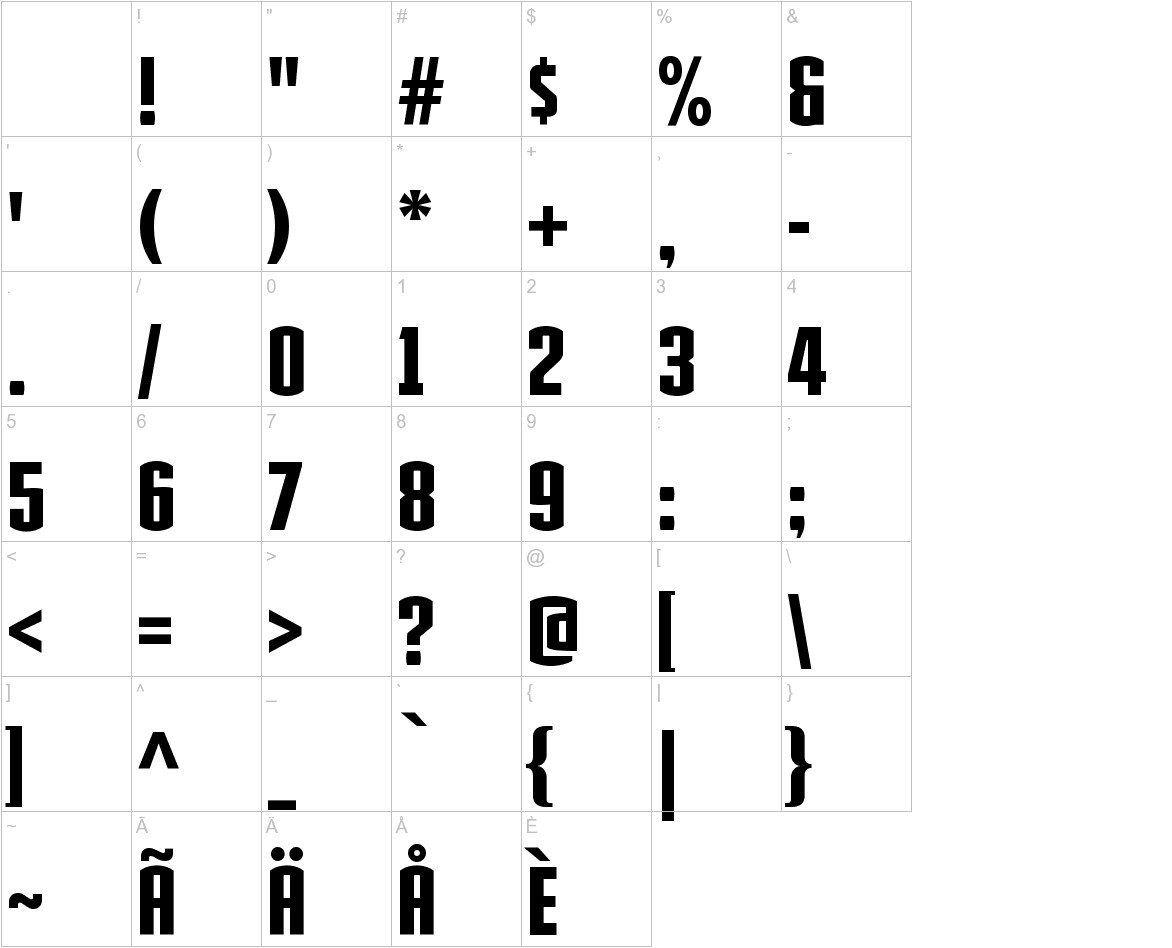
IRON MAN OF WAR 002 NCV
IRON MAN OF WAR 002 NCV is the second face in the IRON MAN OF WAR family. While it certainly has industrial-strength presence, be sure to look for our other IMOW NCV fonts, and visit our website for a complete picture of the entire IMOW collection.